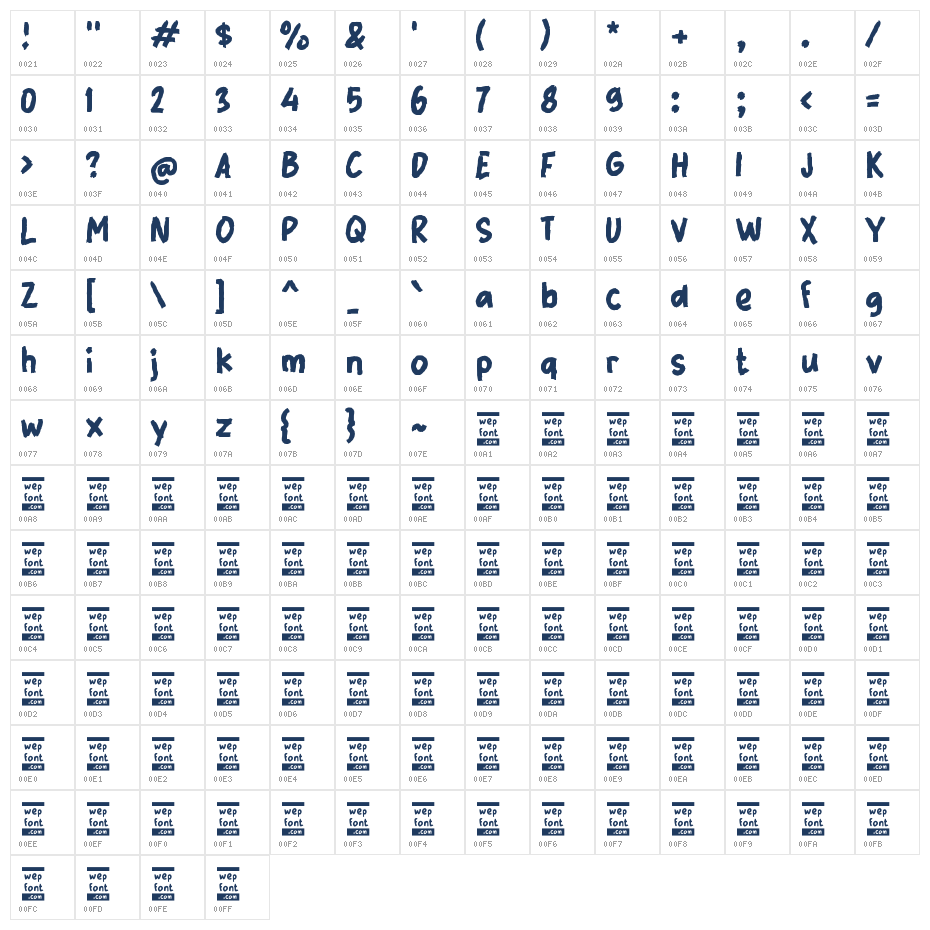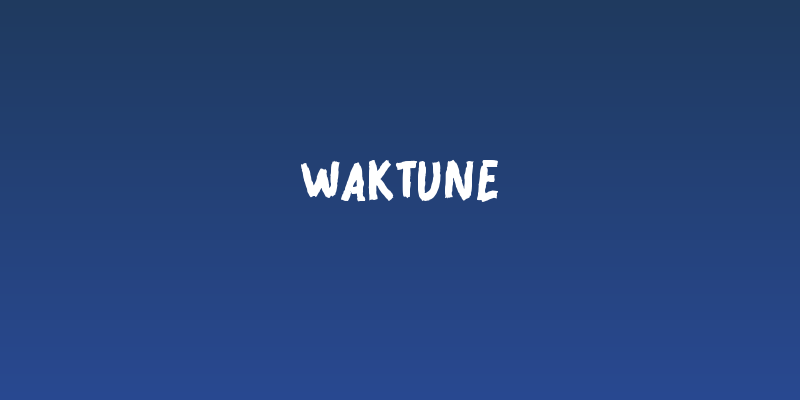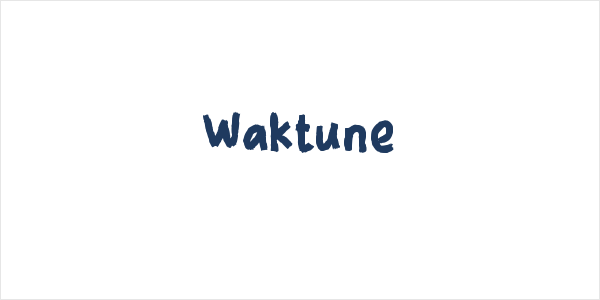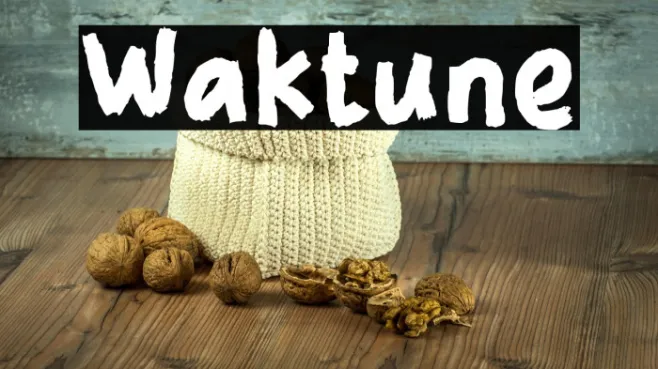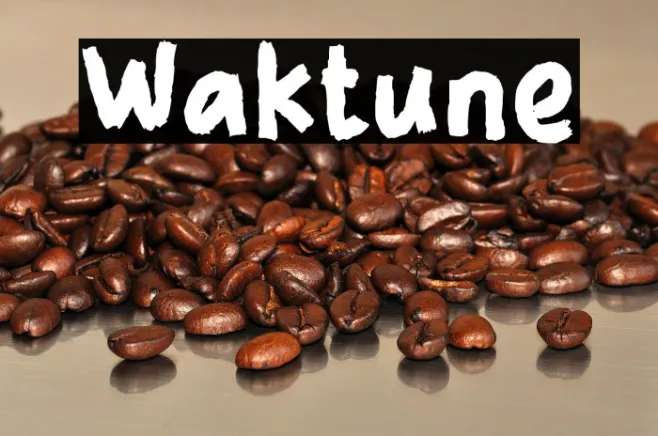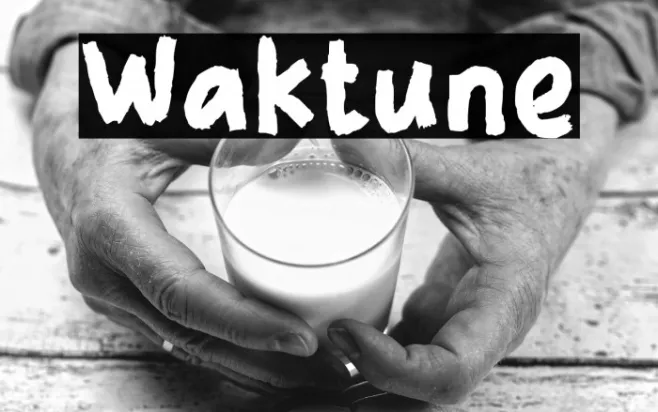
Waktune Font
Waktune Description
A bold, playful, handwritten style font with irregular, brush-like strokes.
| Overall Style | Casual, Playful, Handcrafted |